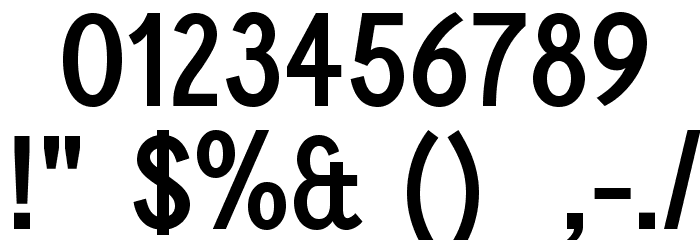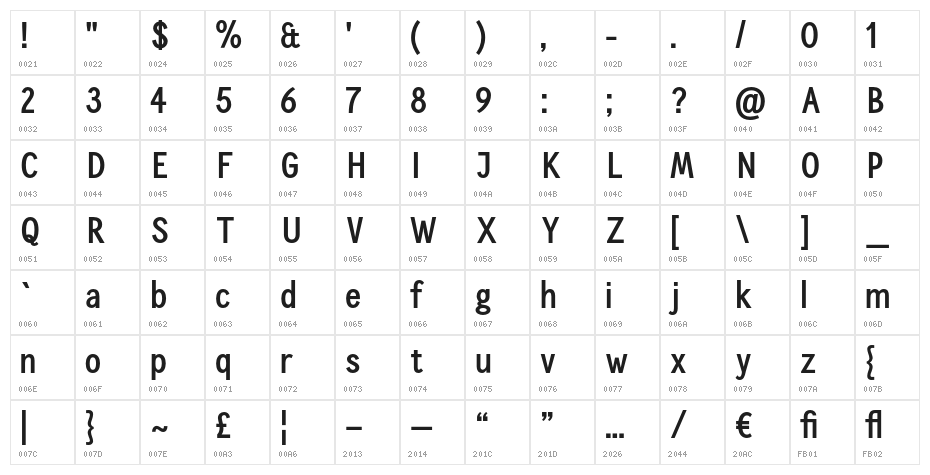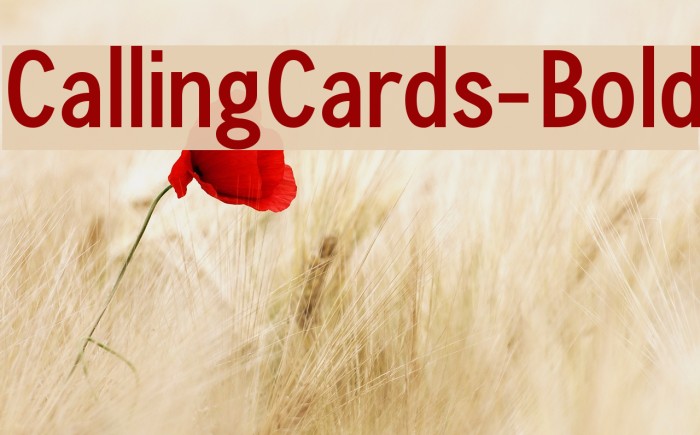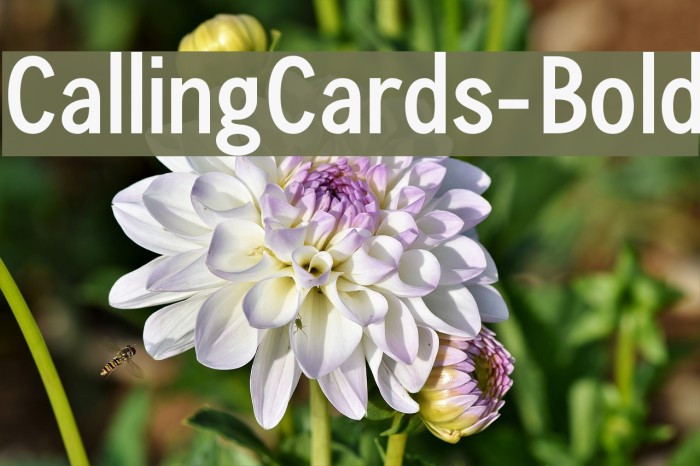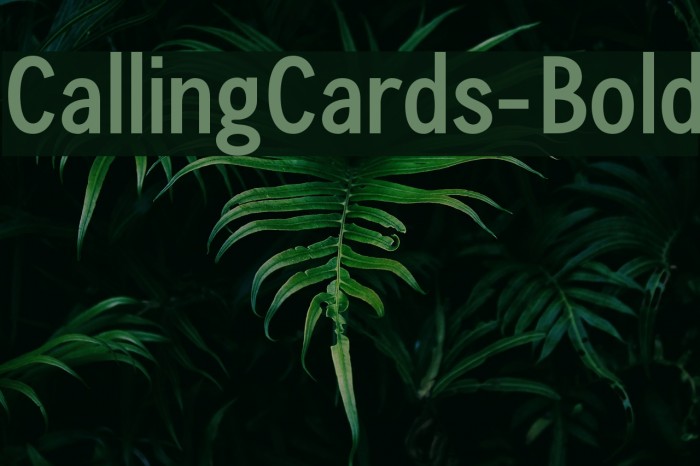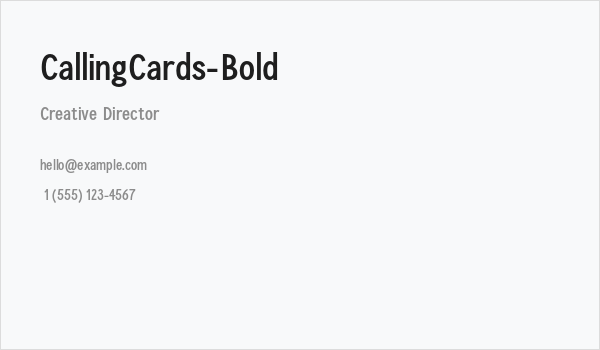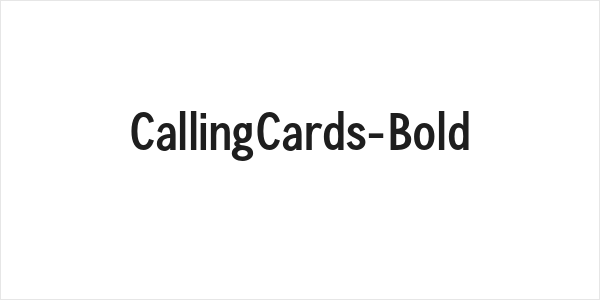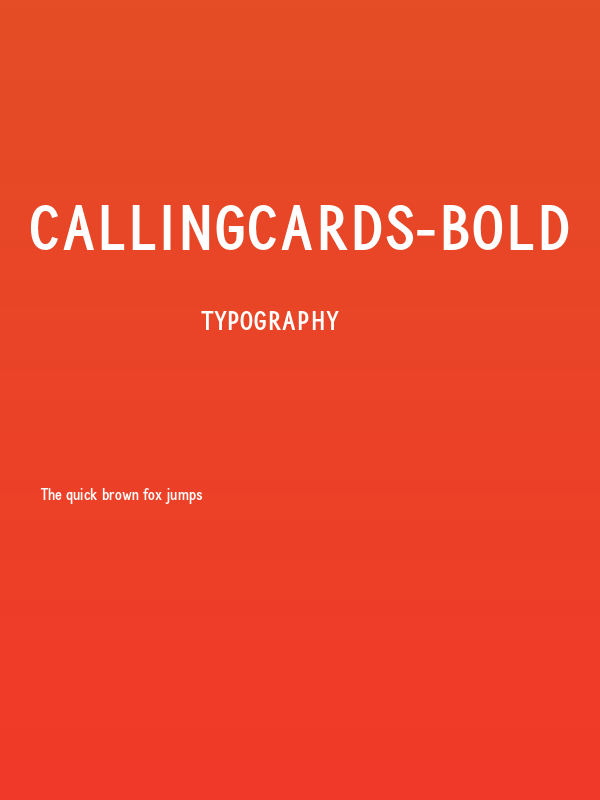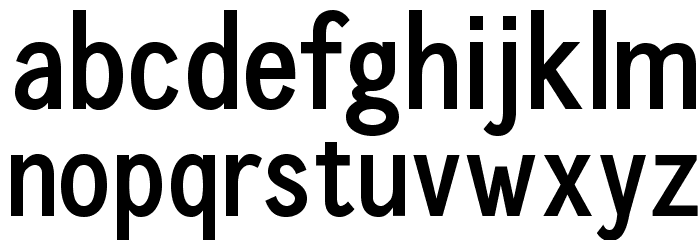
CallingCards-Bold Font
CallingCards-Bold Description
This font features a clean and modern sans-serif design with bold, uniform strokes that convey strength and clarity. The characters are well-proportioned, offering a balanced appearance that enhances readability. The uppercase and lowercase letters maintain a consistent style, with slightly rounded edges that soften the overall look. The numerals are straightforward and align well with the alphabetic characters, ensuring a cohesive visual experience. Special characters are included, providing versatility for various uses. The font's simplicity and boldness make it suitable for a wide range of applications.
| Use Case | Headlines, Logos, Advertising |
| Proposed Projects | Ideal for branding, advertising, headlines, posters, and digital media where clarity and impact are essential. |